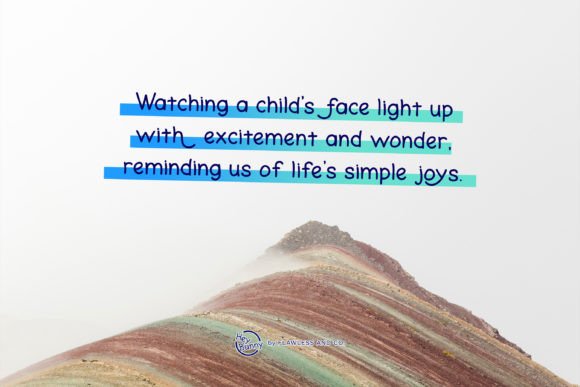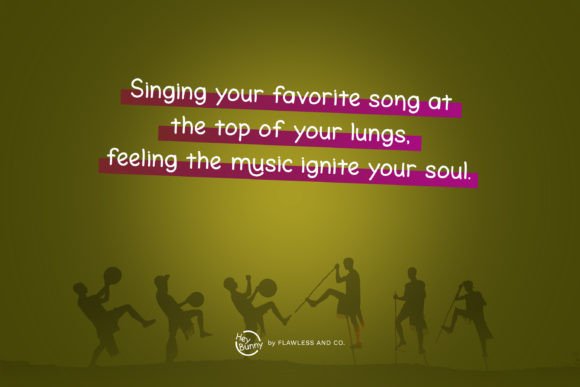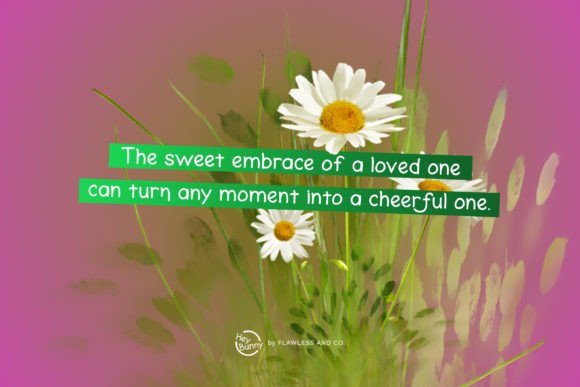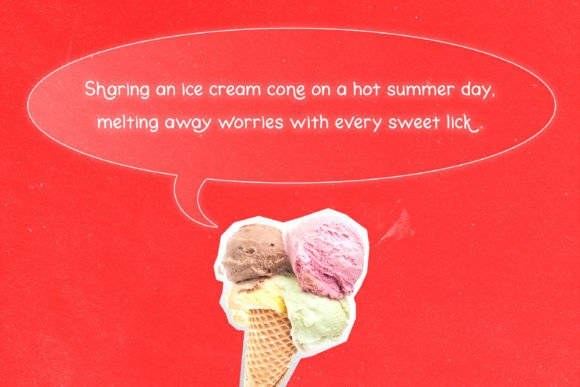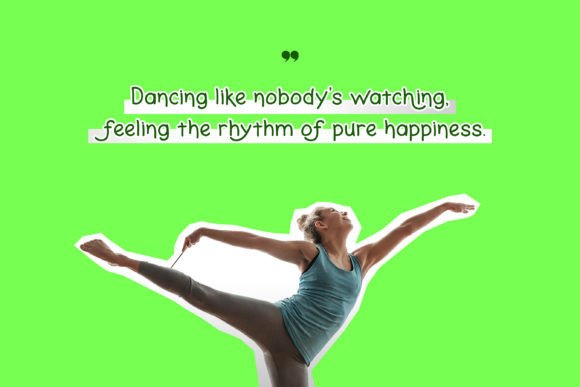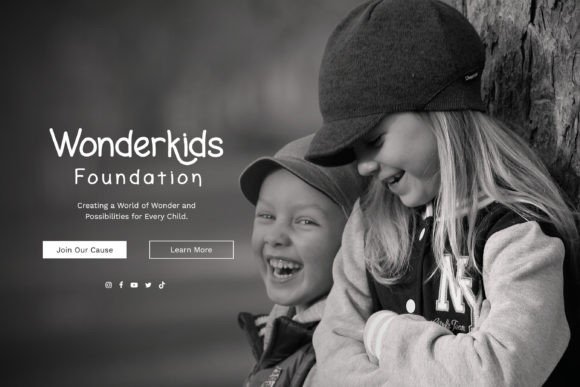
Introduction to Hey Bunny’s Font
Introducing “Hey Bunny’s” – a charming and adorable handwritten font.
Infuse your projects with a touch of cuteness and playfulness using Hey Bunny’s, a delightful handwritten font designed to capture hearts With its lovable and cute style, this font is perfect for adding a sprinkle of charm to various design projects.
Key Features of Hey Bunny’s Font
Why Choose Hey Bunny’s Font?
Hey Bunny’s Font offers exceptional quality and versatility, making it a valuable addition to your design toolkit. Whether you’re creating for personal projects or commercial use, Hey Bunny’s Font delivers professional results.